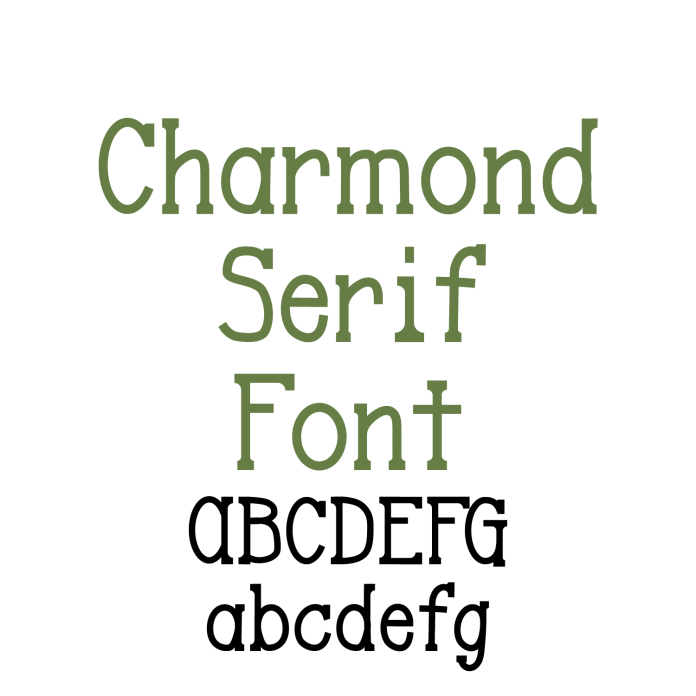
Introducing Charmond Serif Font – a bold and stylish handwritten serif font that brings a perfect mix of elegance and personality to your creative projects. With its thick strokes and charming serif details, Charmond is ideal for greeting cards, quotes, labels, stickers, scrapbooking, classroom decor, and DIY gifts. The playful yet classic look makes it a versatile choice for both fun and formal designs. Optimized for smooth cutting with vinyl, HTV, cardstock, and printables, Charmond Serif adds a handcrafted flair that stands out. Whether you're crafting for school or home, this font is a must-have in your collection!